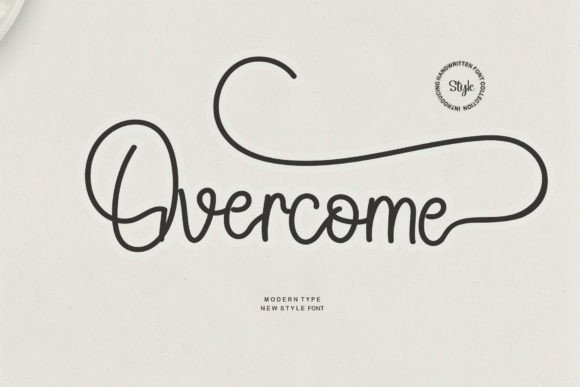
In a world saturated with monotonous fonts, Overcome Font emerges as a beacon of individuality, a mesmerizing symphony of elegance that captivates the soul. Crafted with meticulous care by the renowned font maestro, asmunin78, Overcome Font transcends the boundaries of ordinary, redefining the very essence of script typography.
Prepare to be enchanted by its graceful curves, each stroke a testament to the artistry that birthed it. Overcome Font's delicate lines dance across the page like a ballerina, evoking a sense of ethereal beauty that leaves you spellbound. Its characters, meticulously balanced and perfectly proportioned, harmonize effortlessly, creating a visual masterpiece that commands attention.
With Overcome Font, your designs will transcend the mundane and embrace an aura of sophistication. Its versatility knows no bounds, seamlessly adapting to a myriad of creative endeavors, from heartfelt handwritten notes to captivating logos that speak volumes. Unleash your imagination and witness the transformative power of Overcome Font, as it imbues your projects with an elegance that will leave an indelible mark.
Whether you seek to craft mesmerizing invitations that capture the essence of your special day, design marketing materials that exude professionalism, or simply add a touch of personal flair to your everyday correspondence, Overcome Font stands as your steadfast companion. Its delicate charm will elevate your words, transforming them into visual poetry that speaks straight to the heart.
As you immerse yourself in the world of Overcome Font, you'll discover a font that is not merely a collection of letters, but an expression of art, a conduit for your creativity. Its graceful strokes inspire a sense of serenity, inviting you to slow down, savor the moment, and pour your heart and soul into your written creations.
With Overcome Font, the written word transforms into a captivating narrative, a journey that captivates the reader from the very first glance. Experience the joy of effortless writing, as your words flow seamlessly from pen to paper, each character imbued with the elegance of Overcome Font.
So, dear reader, embrace the allure of Overcome Font and embark on a creative odyssey that will redefine your perception of script typography. Let its beauty captivate you, its versatility empower you, and its elegance elevate your designs to new heights.